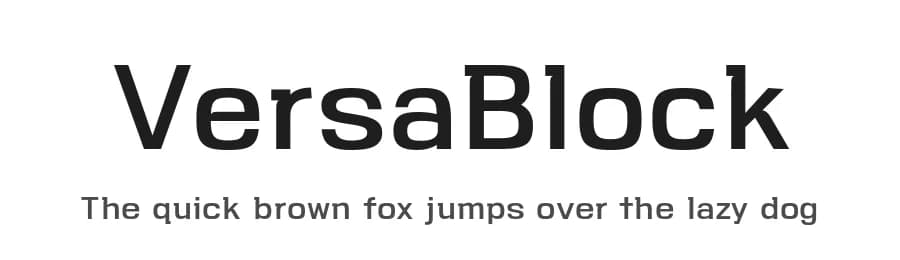
About VersaBlock Font
VersaBlock Font is a versatile sans-serif font that works for both headings and body text. Pair it with a contrasting serif or slab serif font to add visual interest and a clear distinction between titles and body copy.